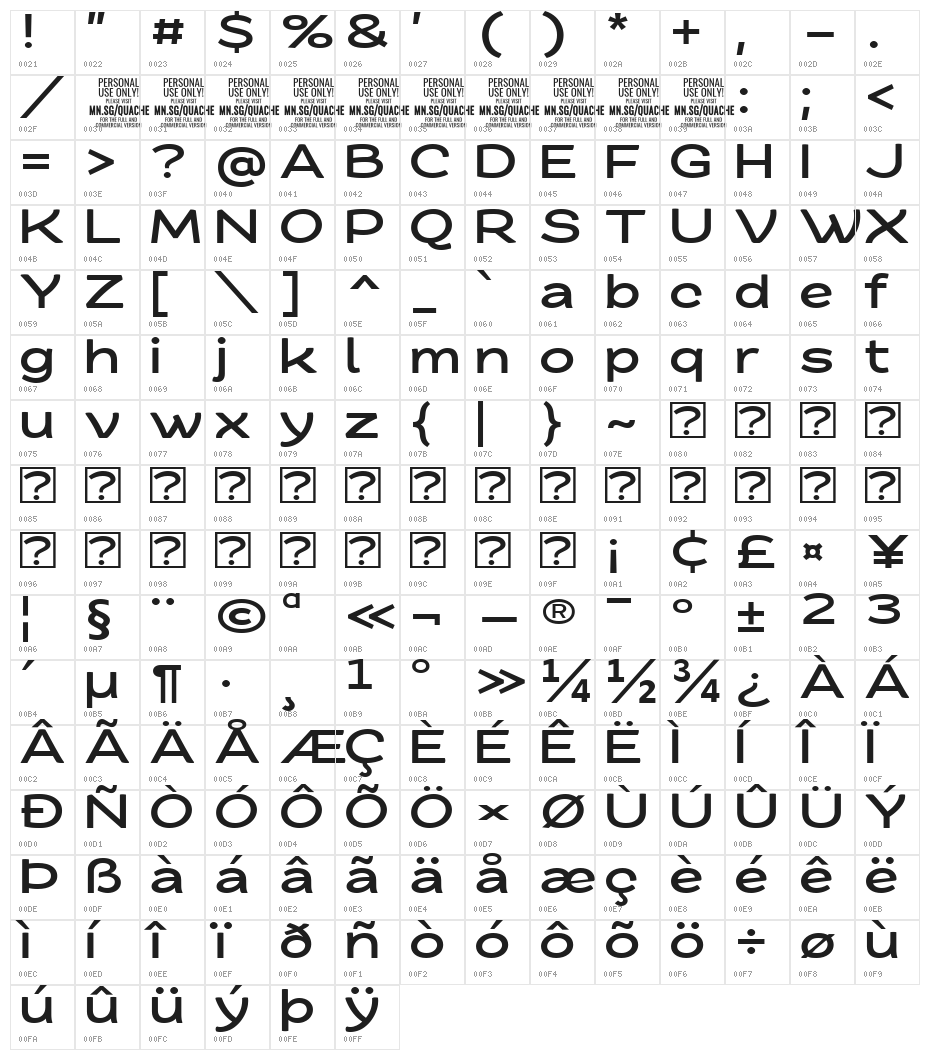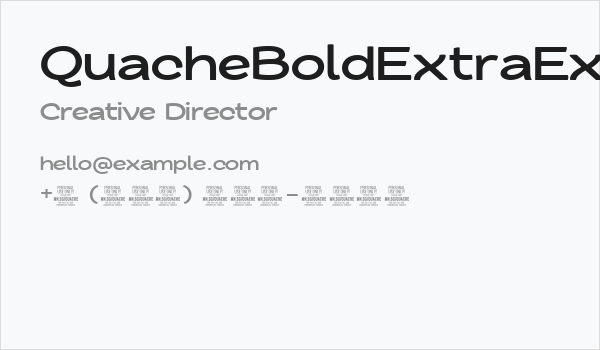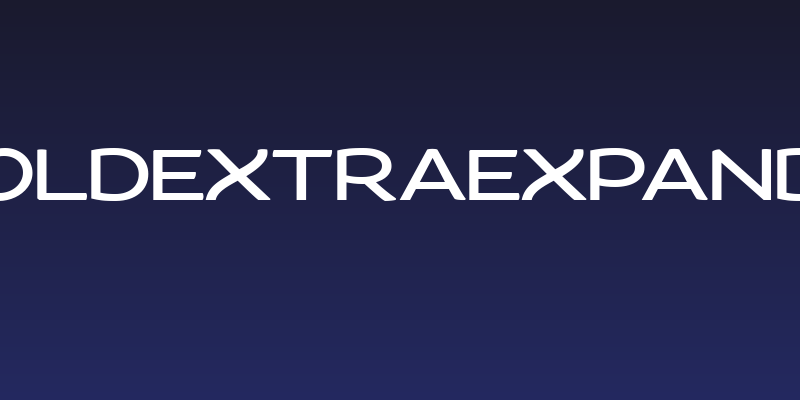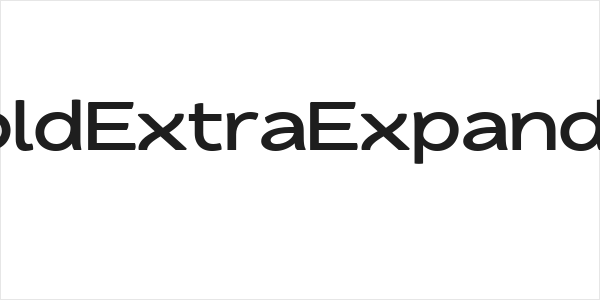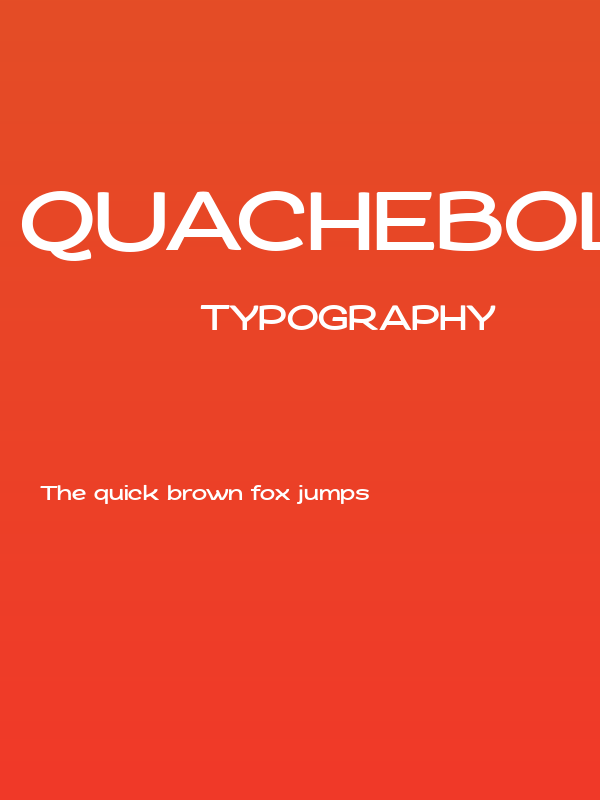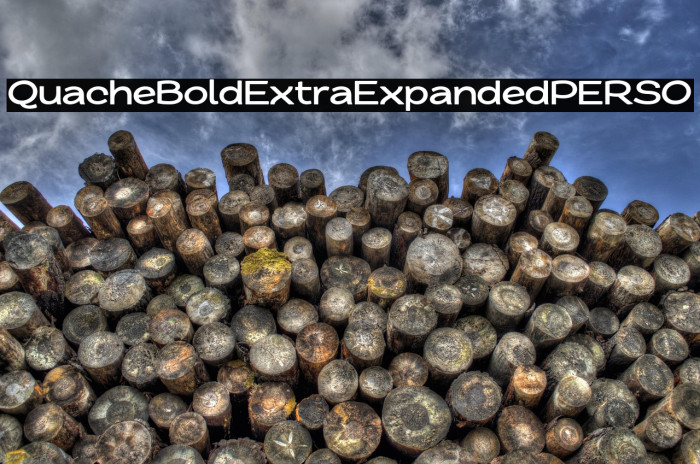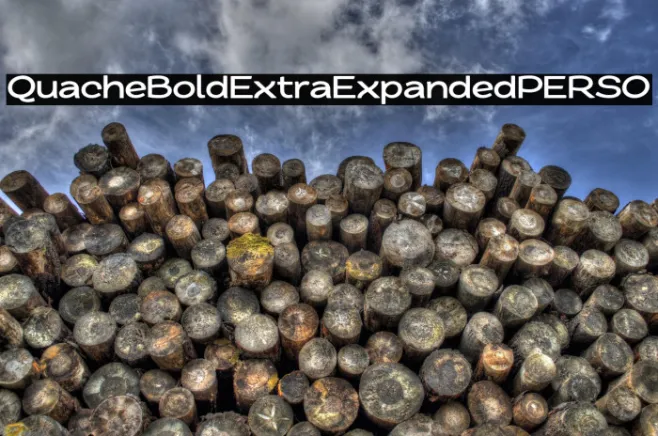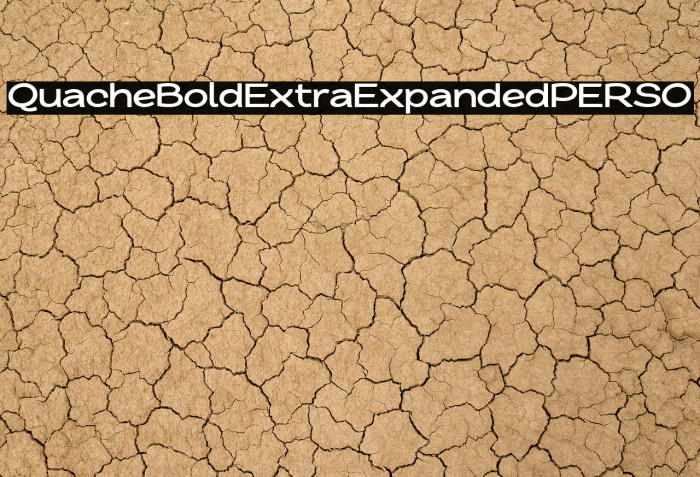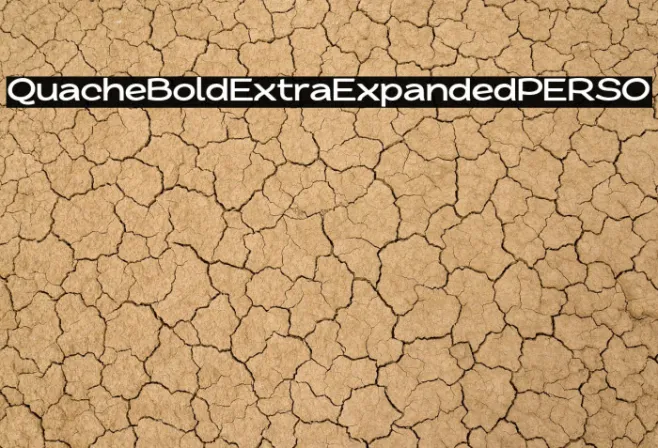
QuacheBoldExtraExpandedPERSO Font
QuacheBoldExtraExpandedPERSO Description
This font features a bold and expanded style, characterized by its clean and modern sans-serif design. The letters are evenly spaced with a consistent stroke width, providing a harmonious and balanced appearance. The uppercase and lowercase letters maintain a uniform height, contributing to its readability and versatility. The numbers and special characters are designed to complement the alphabet, ensuring a cohesive look across all text elements. This font is ideal for making a strong visual impact while maintaining clarity and professionalism.